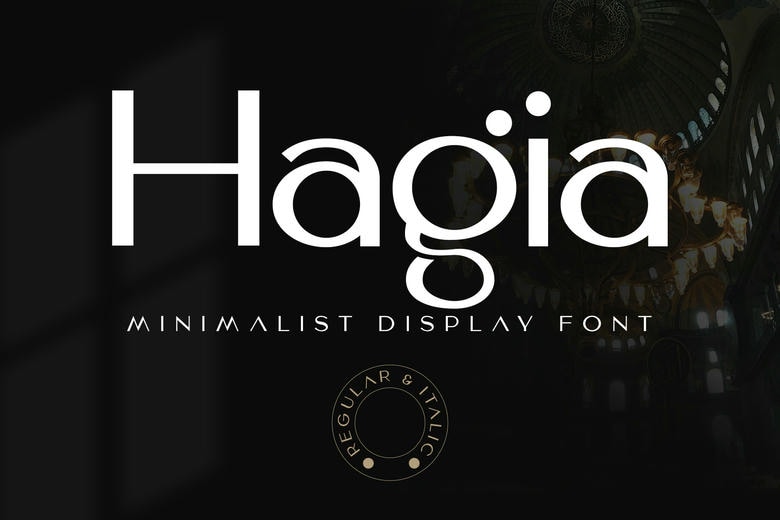
Hagia Font
Hagia is a modern, minimalist display font made for elegant branding, editorial work, fashion, beauty, and luxury projects. Its refined proportions, subtle contrast, and clean letterforms give your designs a sophisticated, contemporary look.
Hagia Sans Serif Font